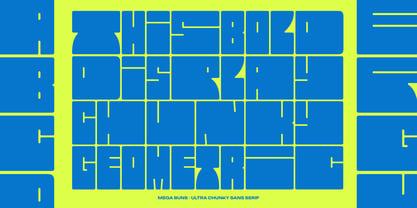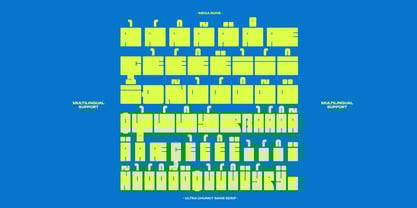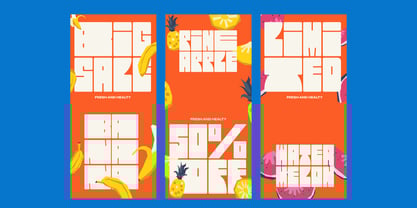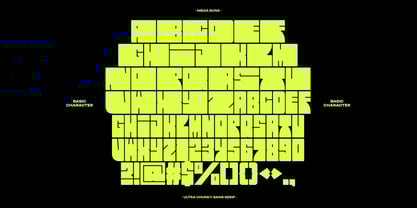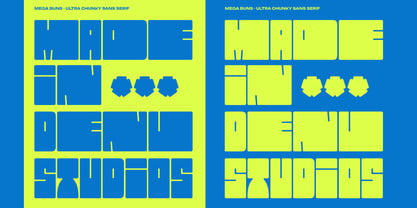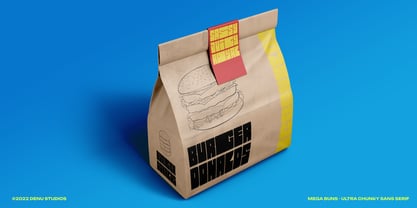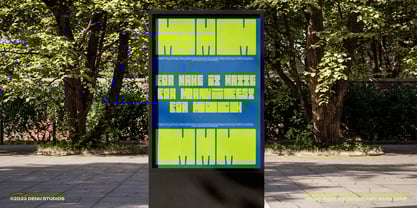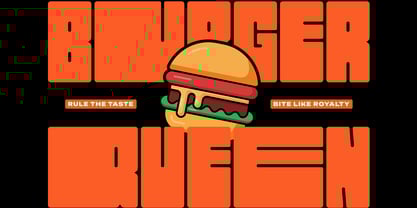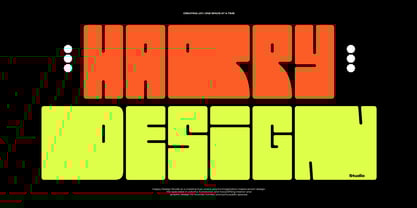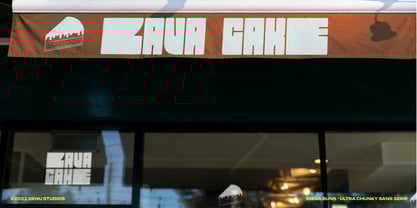
Mega Buns
by Denustudio
The Mega Buns Font Family was designed by Dede Nugraha and published by Denustudio. Mega Buns contains 1 styles. More about this family
Mega Buns | Ultra Chunky Sans, from Denustudios, suitable for any projects such as: logos, branding projects, homeware designs, product packaging, mugs, quotes, posters, shopping bags, t-shirts, book covers, name card, invitation cards, greeting cards, label, photography, watermark, special events, and all your other lovely projects that need Ultra Chunky Sans a taste.
Designers: Dede Nugraha
Foundry: Denustudio